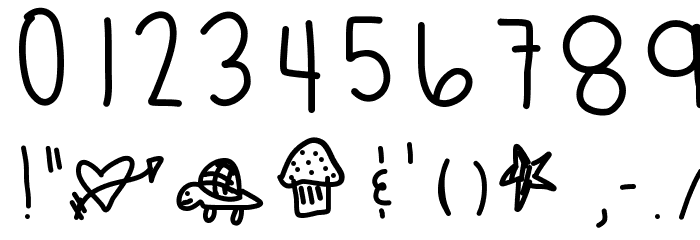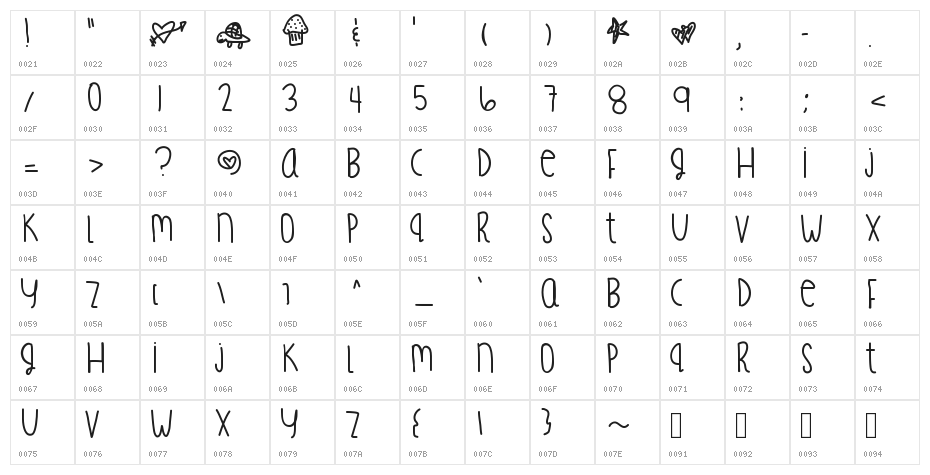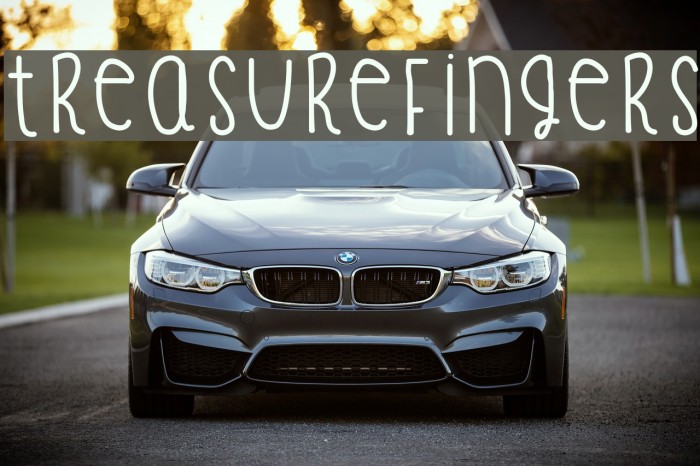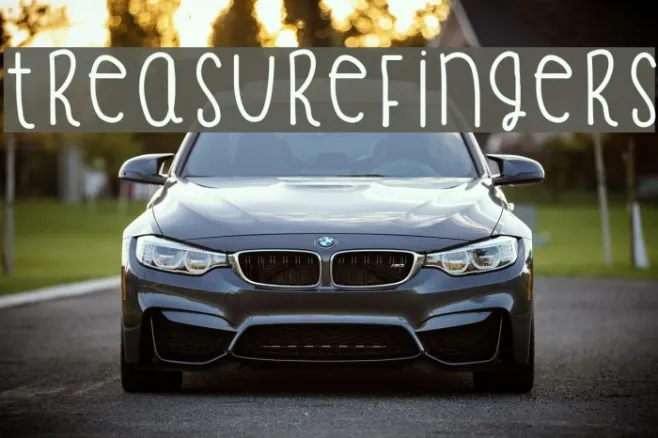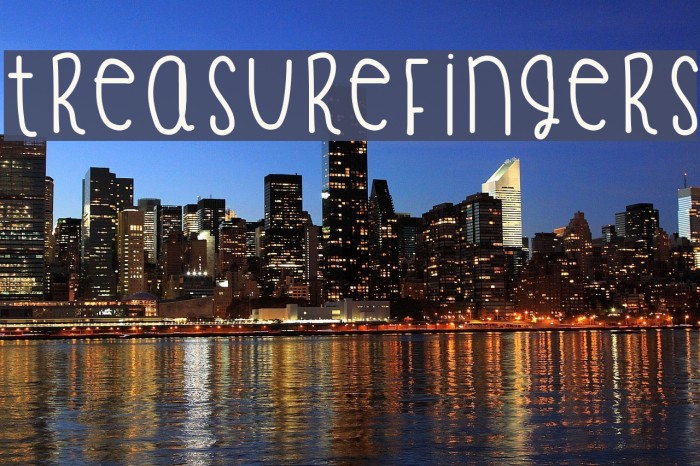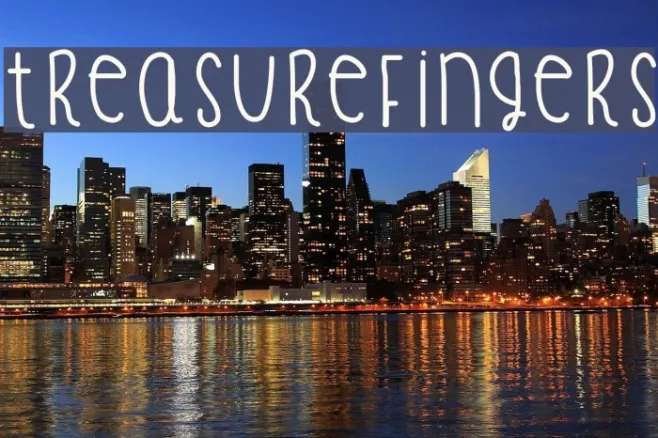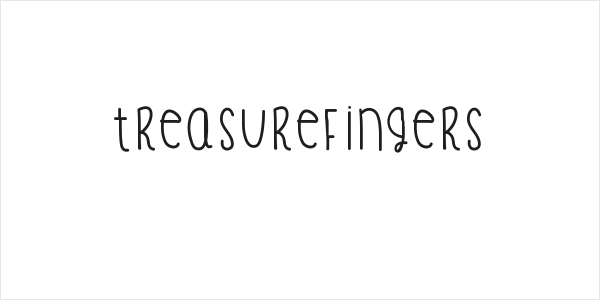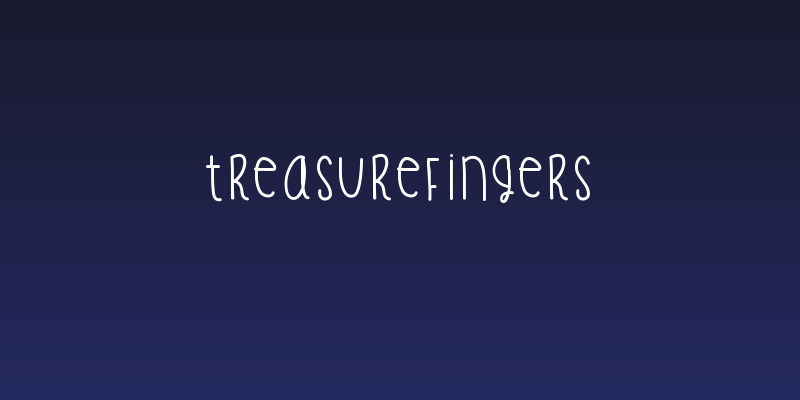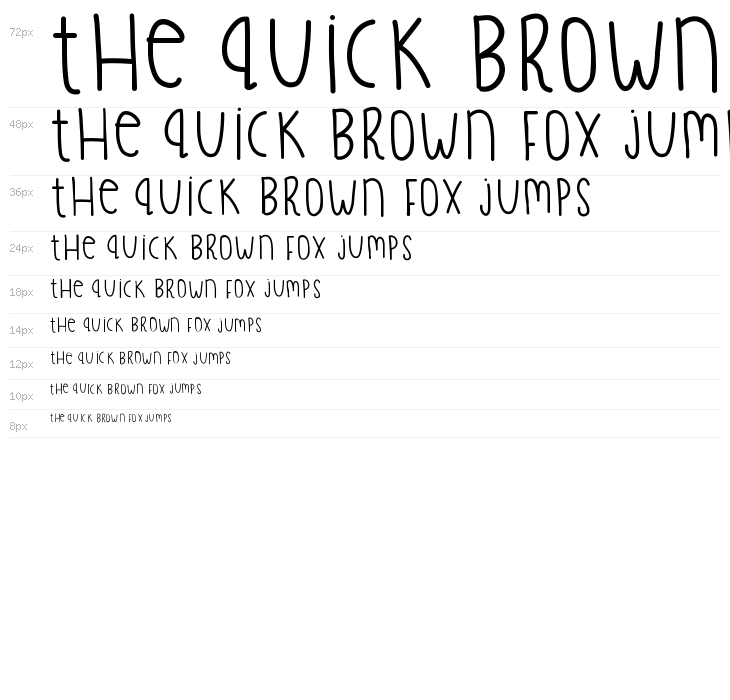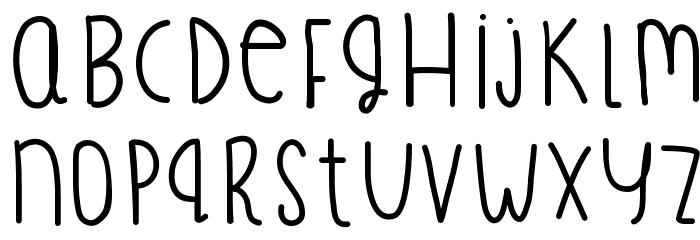
TreasureFingers Font
TreasureFingers Description
This playful and whimsical font features a handwritten style with a casual, friendly appearance. The characters are slightly irregular, adding to its charm and making it feel personal and approachable. The strokes are consistent in width, giving it a uniform look despite its informal style. The font includes a full set of uppercase and lowercase letters, numbers, and a variety of special characters, each maintaining the same playful aesthetic. The overall design is clean, with rounded edges and a slight tilt, enhancing its handwritten feel. This font is perfect for projects that require a touch of personality and creativity.
| Proposed Projects | Ideal for greeting cards, children's books, playful branding, and social media graphics. |